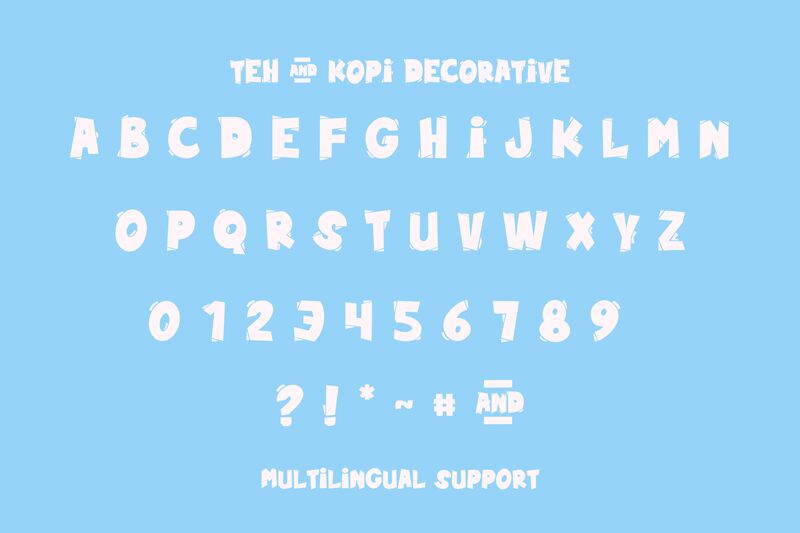
Teh And Kopi
Teh and Kopi is a captivating display font that exudes a delightful, cartoon-inspired aesthetic. Designed by Tigadestd, this bold and distinctive typeface immediately grabs attention with its playful character and striking visual presence. The exaggerated letterforms, reminiscent of hand-drawn illustrations, lend the font a whimsical, lighthearted appeal that would thrive in a variety of design contexts.
From eye-catching headlines and vibrant logos to playful product packaging and engaging social media content, Teh and Kopi's versatile style makes it a compelling choice for designers seeking to infuse their creations with a touch of fun and personality. With its strong, expressive personality, this font is sure to elevate any design project that aims to capture a sense of joy, humor, and approachability.